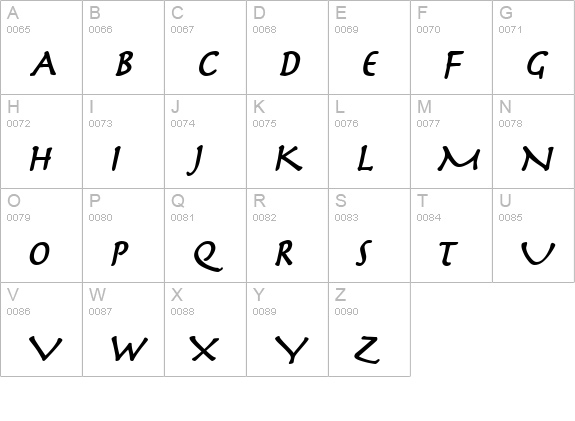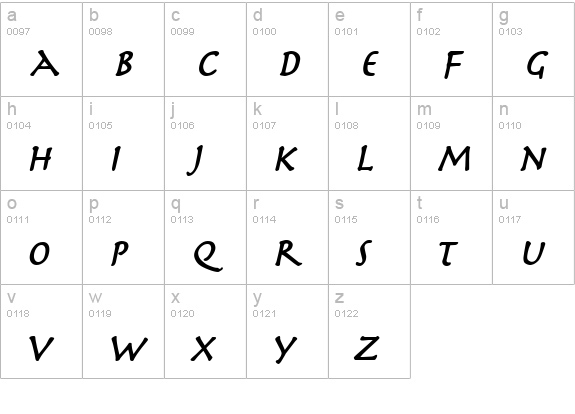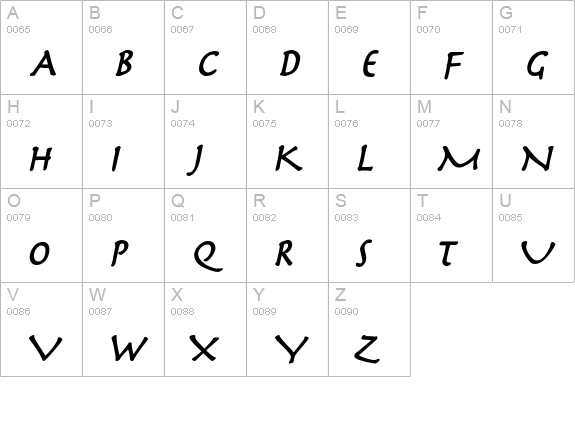
Mythology BoldItalic Font Details
Introducing Mythology BoldItalic font, a majestic and captivating typeface inspired by ancient mythological tales. With its bold and italicized design, this font exudes a sense of power and mystery, perfect for adding a touch of mythic charm to your projects. Mythology BoldItalic font is not only visually striking but also versatile, making it suitable for various design purposes, from branding to editorial work. Its unique style sets it apart and gives your text a distinctive edge. Best of all, Mythology BoldItalic font is available for free download at FontsMarket.com, allowing you to bring a touch of mythical allure to your creative endeavors without any cost. Embrace the magic of ancient legends with Mythology BoldItalic font today!